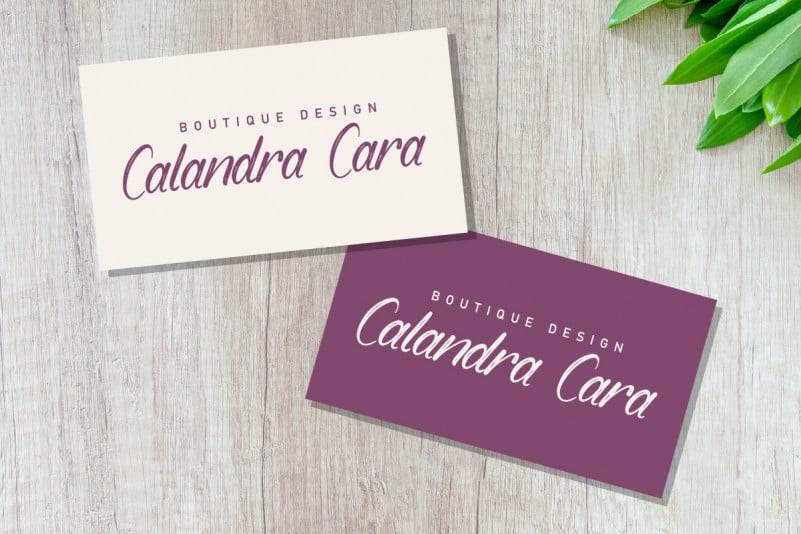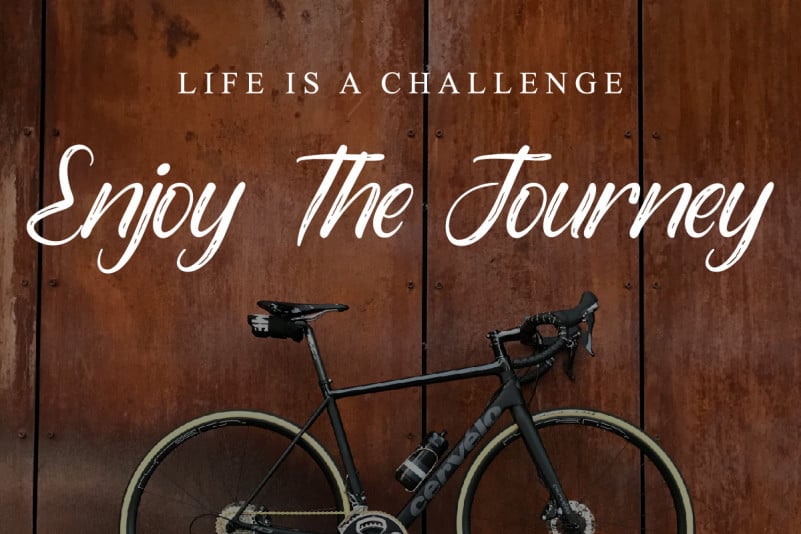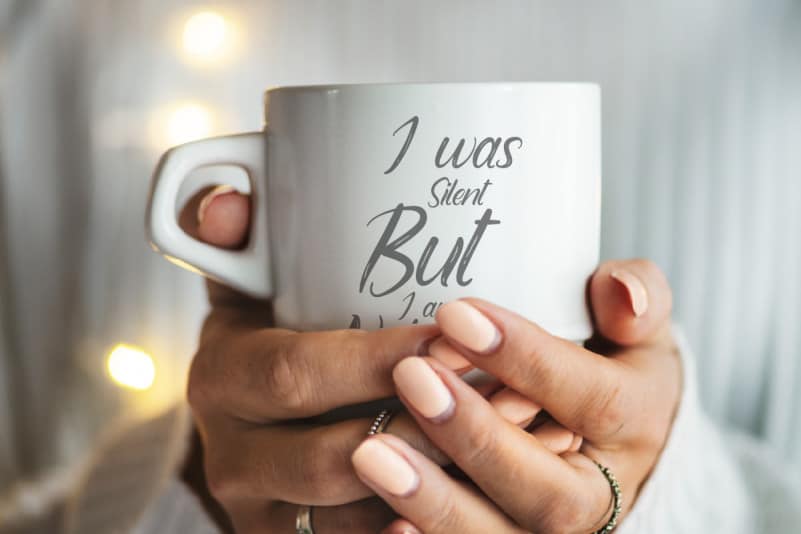
Westerlies Calligraphy Script Font
Westerlies Calligraphy Script Font is a Hand Calligraphy script font. The style of this font are rough, textured, elegant, luxury and classic brush font.